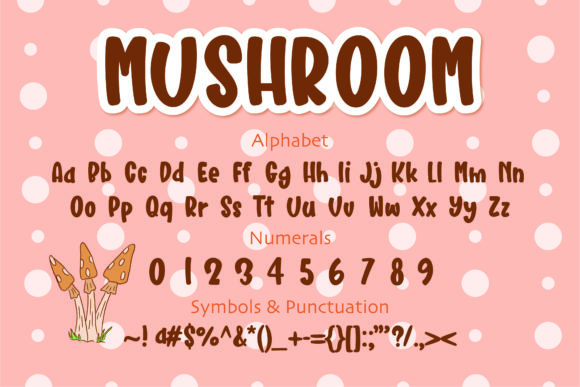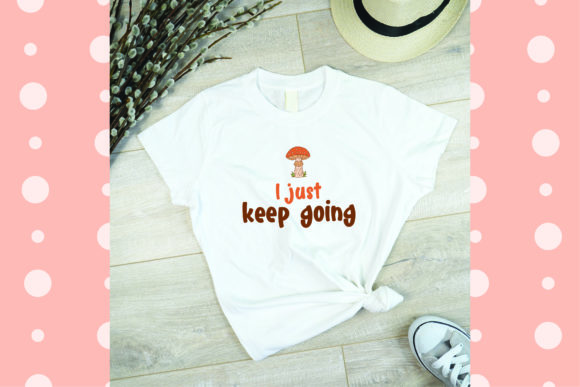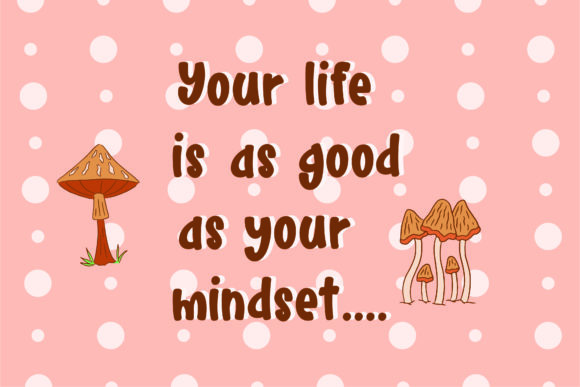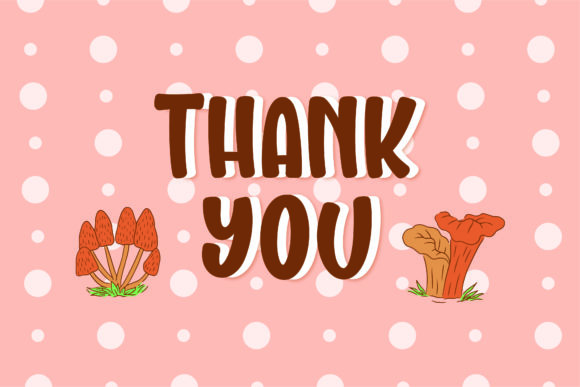
Introduction to Mushroom Font
Mushroom is a cool, adaptable and friendly handwritten font.
It looks as if it was the handwriting of a child, and as a result, this font will be the perfect choice for writing letters to Santa or adding a touch of innocence to your creations .